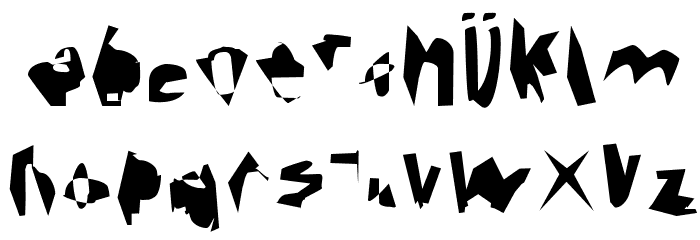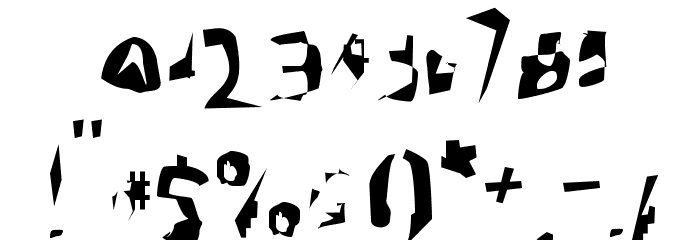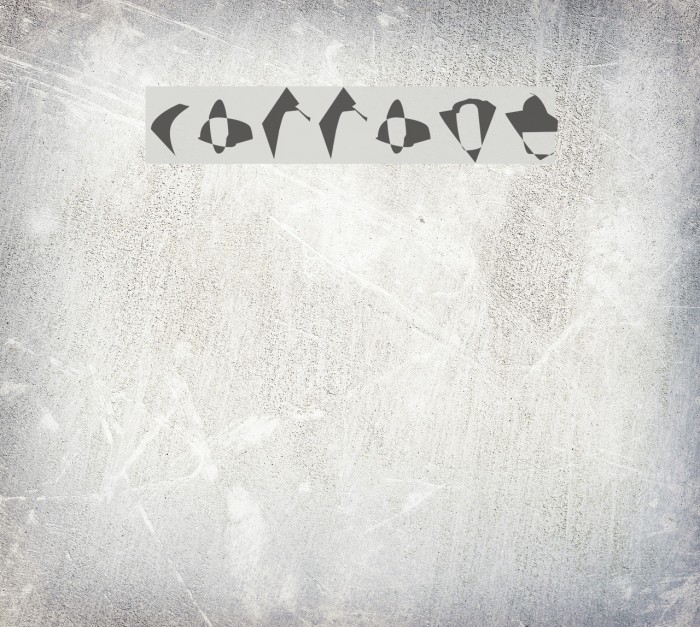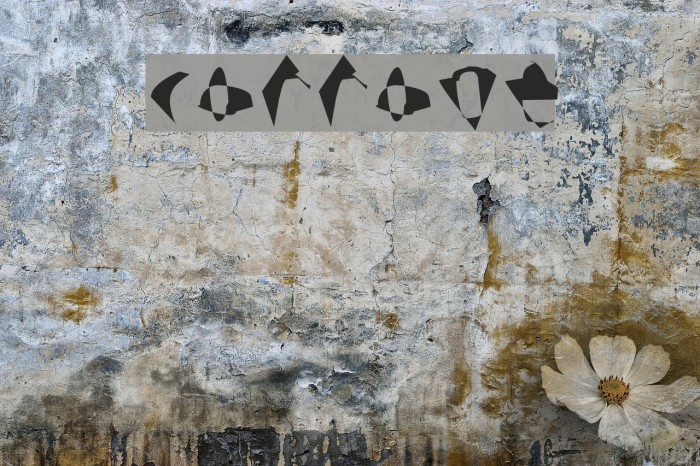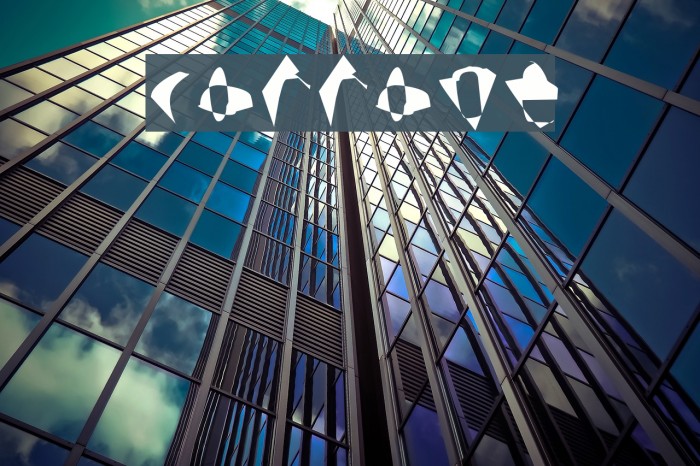
Corrode Font
This font features a highly distressed and fragmented style, reminiscent of decayed or corroded surfaces. Each character appears as if it has been eroded over time, with jagged edges and irregular shapes. The design is bold and striking, capturing attention with its unique, chaotic appearance. The uppercase and lowercase letters maintain a consistent theme of disintegration, while the numbers and special characters follow suit with similar distortion. This font is ideal for projects that aim to convey a sense of decay, destruction, or grunge aesthetics.
A distressed, fragmented font with a chaotic, corroded appearance.
- Proposed Projects: Perfect for horror movie posters, album covers for metal bands, or any design needing a grunge or decayed look.